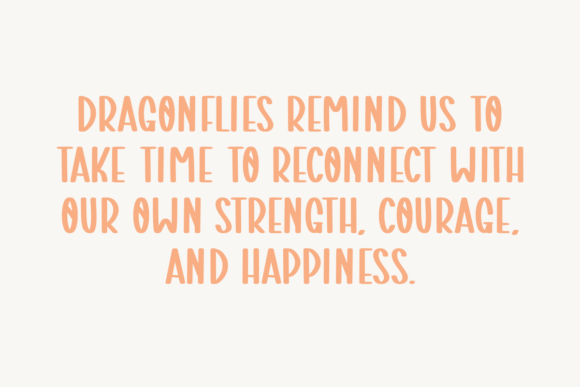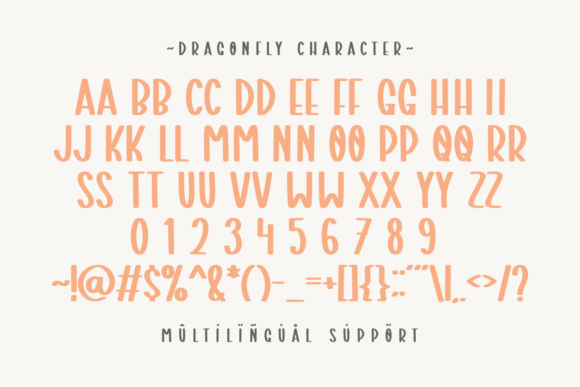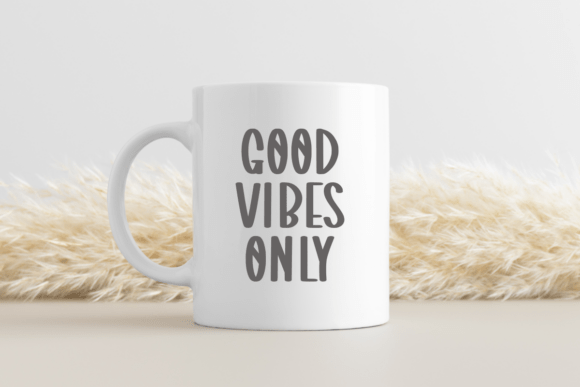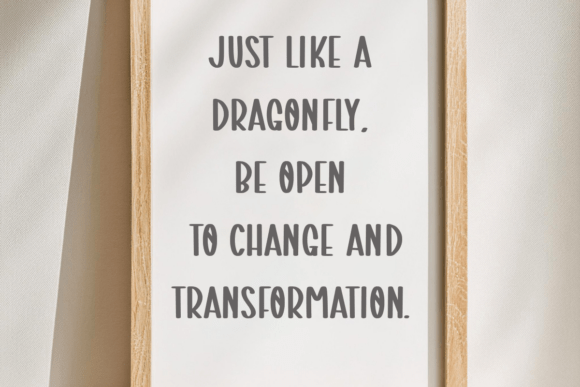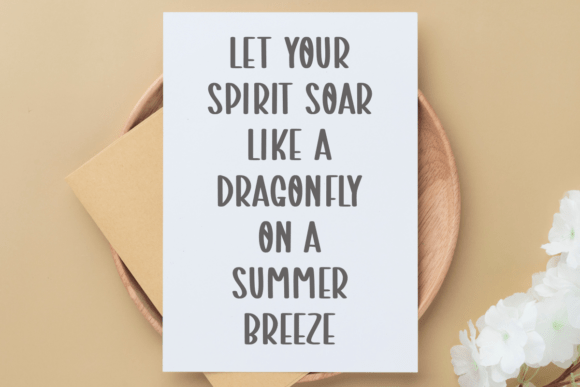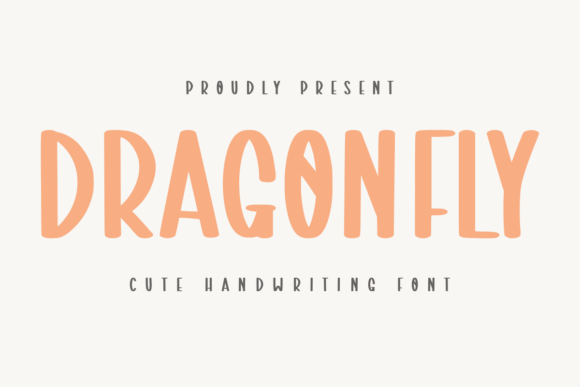
Dragonfly Font: Add a Touch of Holiday Cheer to Your Designs
Are you looking for a font that can add a festive and fun touch to your designs? Look no further than the Dragonfly Font! This handwritten font is perfect for creating holiday-themed graphics, cards, and invitations that are sure to delight. In this article, we’ll take a closer look at the Dragonfly Font, its features, and how you can use it to elevate your designs.
What is Dragonfly Font?
Dragonfly Font is a festive and fun handwritten font that is designed to bring a touch of holiday cheer to your designs. With its playful curves and bold lines, this font is ideal for creating cards, invitations, and other holiday-themed graphics. The font is carefully crafted to evoke a sense of joy and festivity, making it perfect for designers and crafters who want to add a personal touch to their work.
Features of Dragonfly Font
The Dragonfly Font has several features that make it stand out from other fonts. Some of its key features include:
- Playful curves: The font features playful curves that give it a fun and festive feel.
- Bold lines: The bold lines of the font make it easy to read and add a touch of sophistication to your designs.
- Handwritten style: The font has a handwritten style that gives it a personal and unique touch.
- Holiday-themed: The font is specifically designed for holiday-themed designs, making it perfect for creating cards, invitations, and other festive graphics.
How to Use Dragonfly Font
The Dragonfly Font is easy to use and can be incorporated into a variety of designs. Here are some ideas for using the font:
- Create holiday cards: Use the Dragonfly Font to create festive holiday cards that are sure to delight your friends and family.
- Design invitations: The font is perfect for creating holiday-themed invitations for parties, events, and other celebrations.
- Make festive graphics: Use the font to create festive graphics, such as holiday-themed posters, banners, and social media graphics.
- Add a personal touch: The font can be used to add a personal touch to your designs, making them more unique and special.
Benefits of Using Dragonfly Font
There are several benefits to using the Dragonfly Font in your designs. Some of the benefits include:
- Unique and festive: The font is unique and festive, making it perfect for holiday-themed designs.
- Easy to read: The bold lines of the font make it easy to read, even at small sizes.
- Versatile: The font can be used in a variety of designs, from cards and invitations to graphics and posters.
- Time-saving: The font can save you time and effort, as it is already designed to be festive and fun.
Tips for Using Dragonfly Font
Here are some tips for using the Dragonfly Font in your designs:
- Use it sparingly: Use the font sparingly to add a touch of festivity to your designs.
- Experiment with colors: Experiment with different colors to find the perfect combination for your design.
- Pair it with other fonts: Pair the Dragonfly Font with other fonts to create a unique and interesting design.
- Have fun: Most importantly, have fun and be creative with the font!
The Dragonfly Font is a festive and fun handwritten font that is perfect for adding a touch of holiday cheer to your designs. With its playful curves and bold lines, this font is ideal for creating cards, invitations, and other holiday-themed graphics. Whether you’re a designer or crafter, the Dragonfly Font is a great addition to your toolkit. So why not give it a try and see how it can elevate your designs?